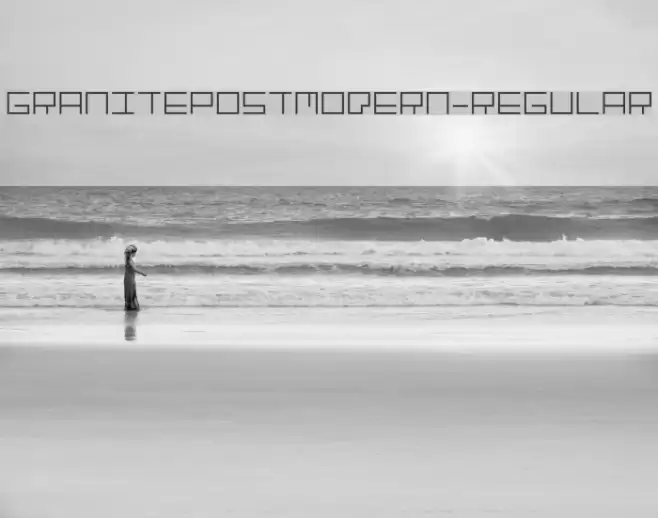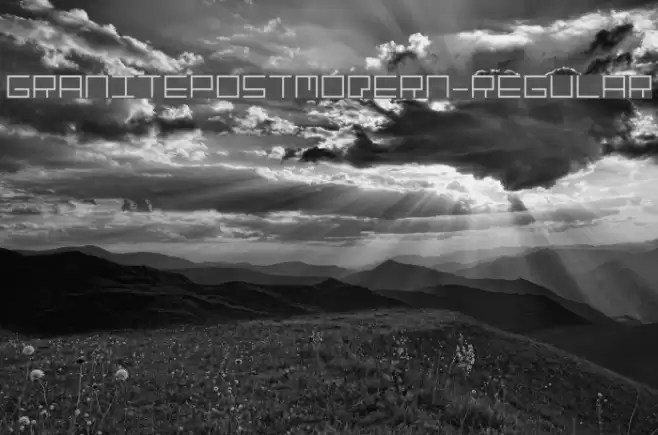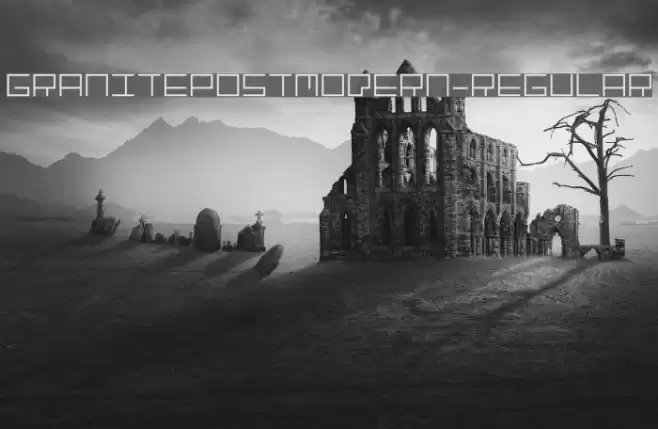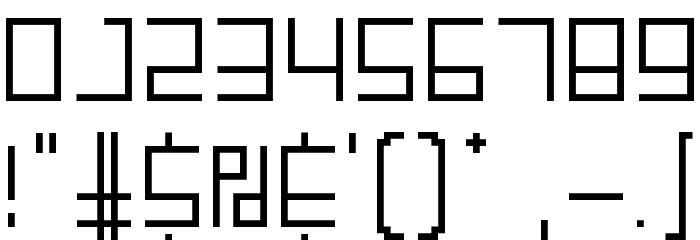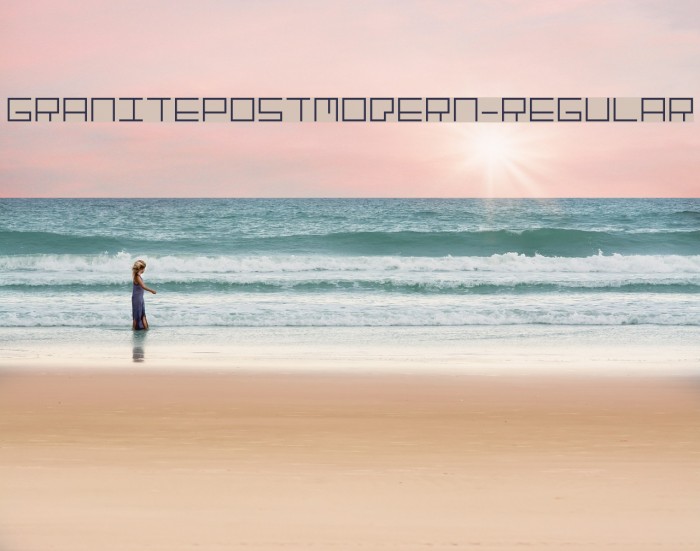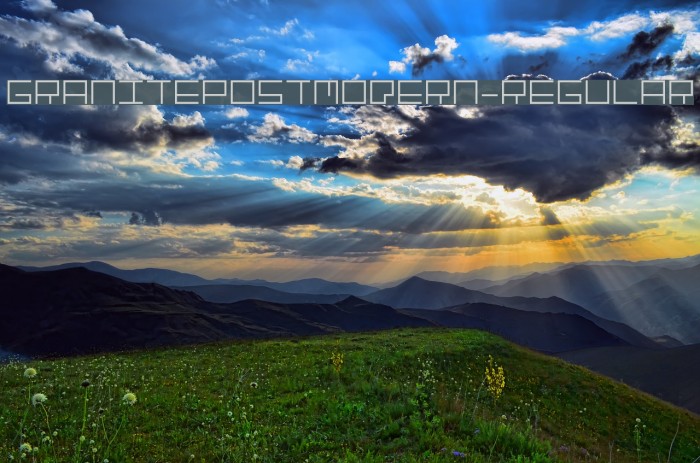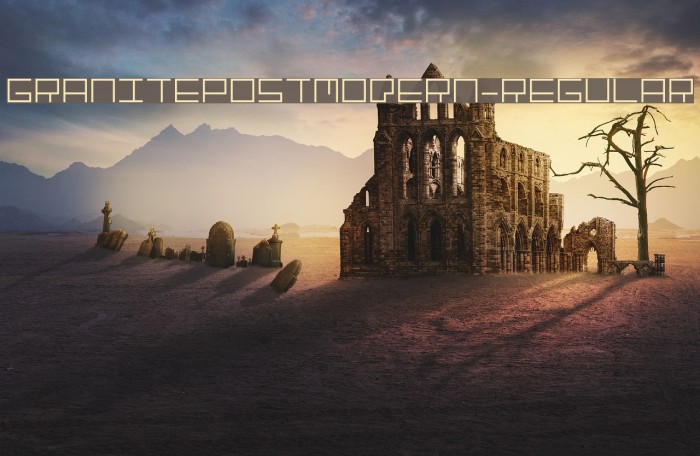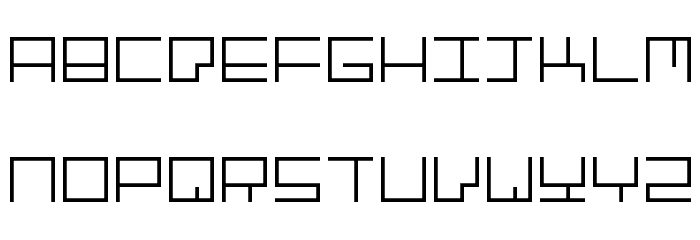
GranitePostmodern-Regular Font
GranitePostmodern-Regular Description
This font features a geometric, grid-like structure with a distinctly modern and postmodern aesthetic. Each character is composed of straight lines and right angles, giving it a mechanical and structured appearance. The uppercase and lowercase letters maintain a consistent height, contributing to a uniform look across the typeface. The numerals and special characters follow the same design principles, ensuring a cohesive style throughout. This font's unique design makes it stand out, suitable for projects that require a futuristic or technical feel.
A geometric, grid-based font with a modern, postmodern aesthetic from Futuristic fonts.
- Proposed Projects: Ideal for technology branding, digital interfaces, modern art projects, and futuristic design themes.
- Overall Style: Modern, Postmodern
- Use Case: Logos, Headlines, Digital Interfaces